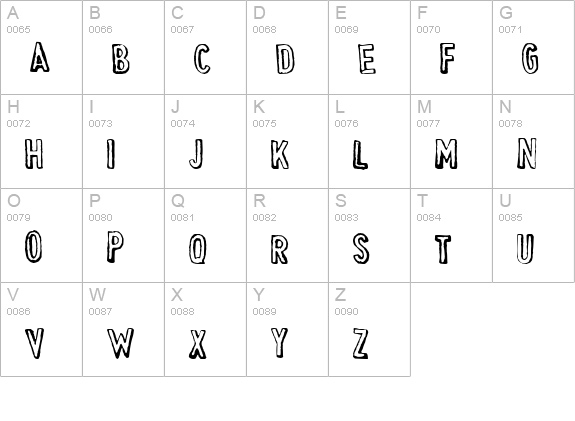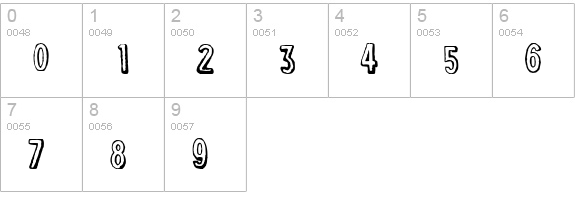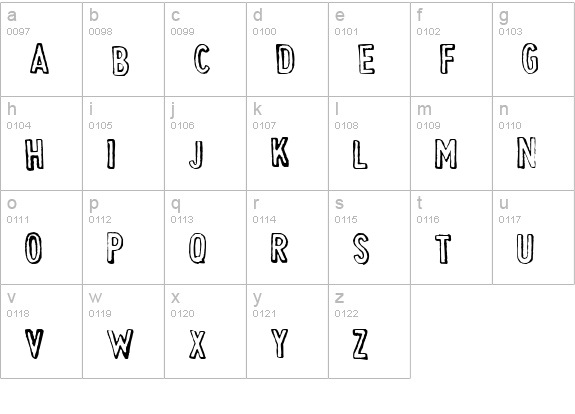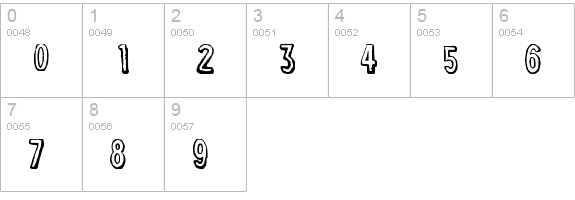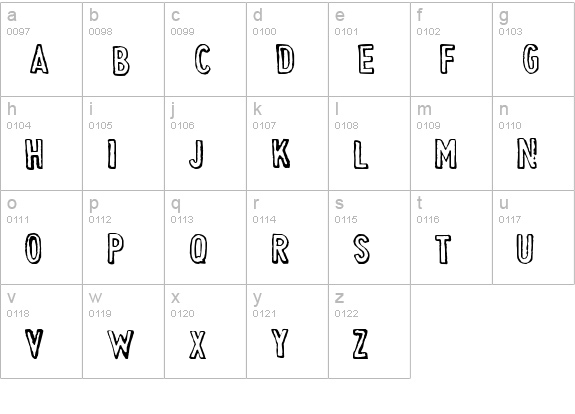
Cheapskate Outline font is a stylish and modern typeface that combines a sleek outline design with a touch of fun and creativity. This font is perfect for adding a unique and eye-catching touch to your projects, whether it's for posters, logos, or social media graphics. The Cheapskate Outline font is versatile and can be used for a wide range of design purposes. The best part about the Cheapskate Outline font is that it is completely free! Yes, you read that right - this fantastic font is freely available to download at FontsMarket.com. So you can add a touch of style to your designs without breaking the bank. Don't miss out on this amazing opportunity to enhance your creative projects with the Cheapskate Outline font. Download it now and let your creativity shine!